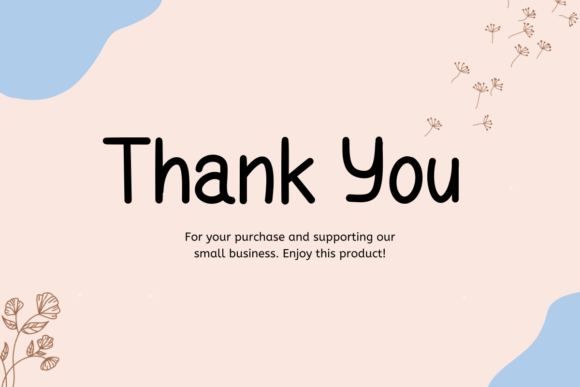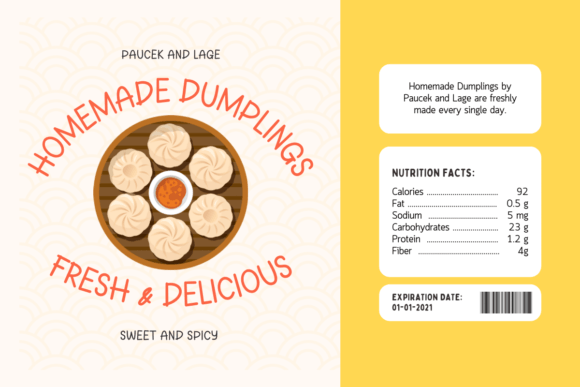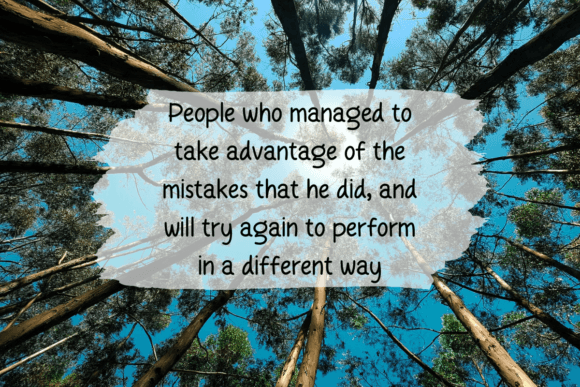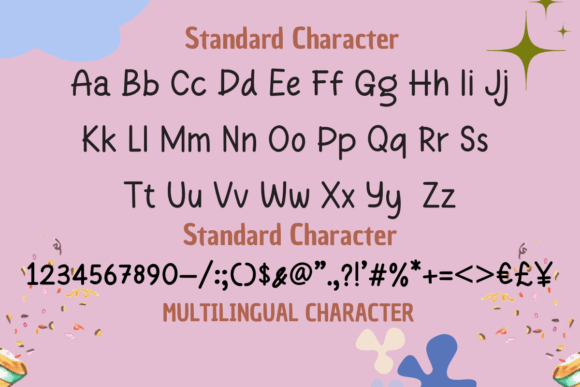
Introduction to Goofy Graffle Font Font
Fonts play a crucial role in design, and the Goofy Graffle Font font is a typeface that brings both character and versatility to any project. Whether you’re working on a branding project, a website, or a print design, the Goofy Graffle Font font offers a unique style that can elevate your work.
Introducing “Groofy Graffle,” a font that embodies the art of handcrafted monoline strokes, resulting in a font that’s both natural and uniquely captivating.
“Groofy Graffle” is your creative companion for crafting stunning magazine layouts, infusing quotes with a natural and distinctive charm, establishing a memorable brand identity through logos, and addressing a myriad of other design needs .
Key Features of Goofy Graffle Font Font
Why Choose Goofy Graffle Font Font?
The Goofy Graffle Font font is more than just a typeface – it’s a design tool that helps you communicate your message with style and clarity. Its unique character set and versatile design make it suitable for a wide range of applications, from elegant invitations to bold headlines.
With its carefully crafted letterforms and balanced proportions, the Goofy Graffle Font font ensures readability and visual appeal across all mediums.
What makes Goofy Graffle Font font special?
The Goofy Graffle Font font stands out with its unique design, exceptional readability, and versatility across various design applications.